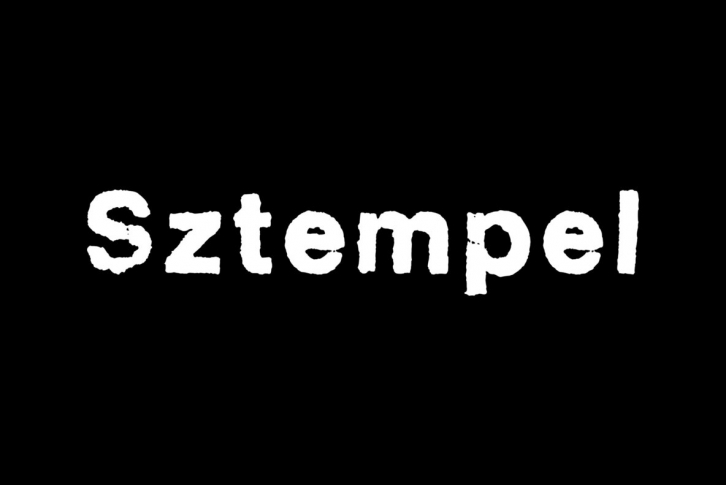
Designed by Wojtek Podulka in 2004, Sztempel is a raw, distressed sans-serif display font. At larger sizes Sztempel is (purposely) gritty, noisy and very intense. But when used at smaller sizes it still retains legibility and holds a very organic, heavy/blotchy ink like style.